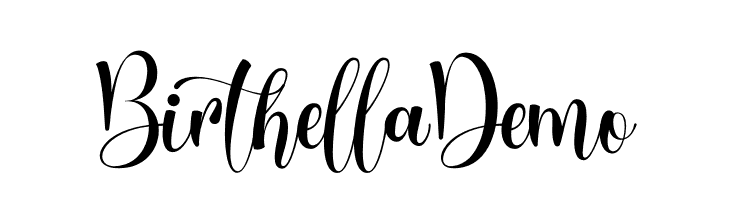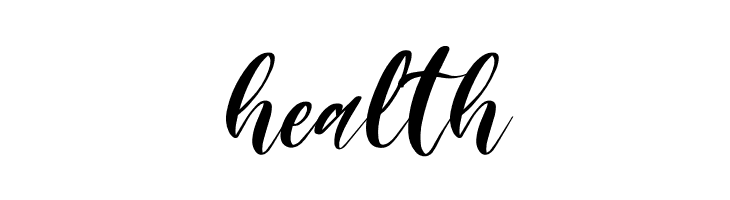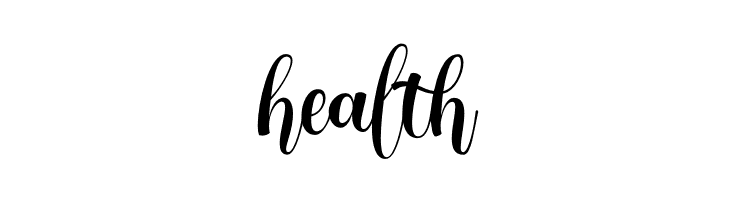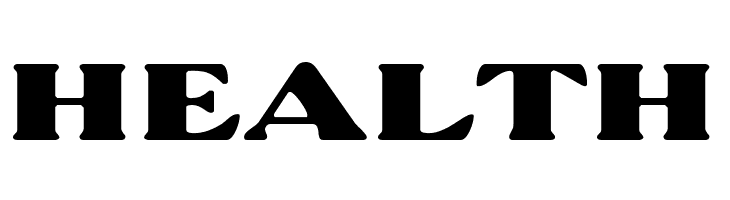
An elegant, flowing script font with smooth, cursive strokes.
A playful and flowing script font with elegant curves and decorative swashes.
An elegant, flowing script font with delicate, elongated strokes and ornate details.
A delicate and flowing script font with elegant, intricate curves.
An elegant, flowing script font with a modern touch.
An elegant, flowing script font with intricate loops and swashes.
A bold, high-contrast serif font with dramatic and authoritative style.
An elegant italic font with smooth curves and high contrast, perfect for sophisticated designs.
A bold, elegant serif font with high contrast and classic style.
A flowing, elegant script font with a playful yet sophisticated handwritten style.